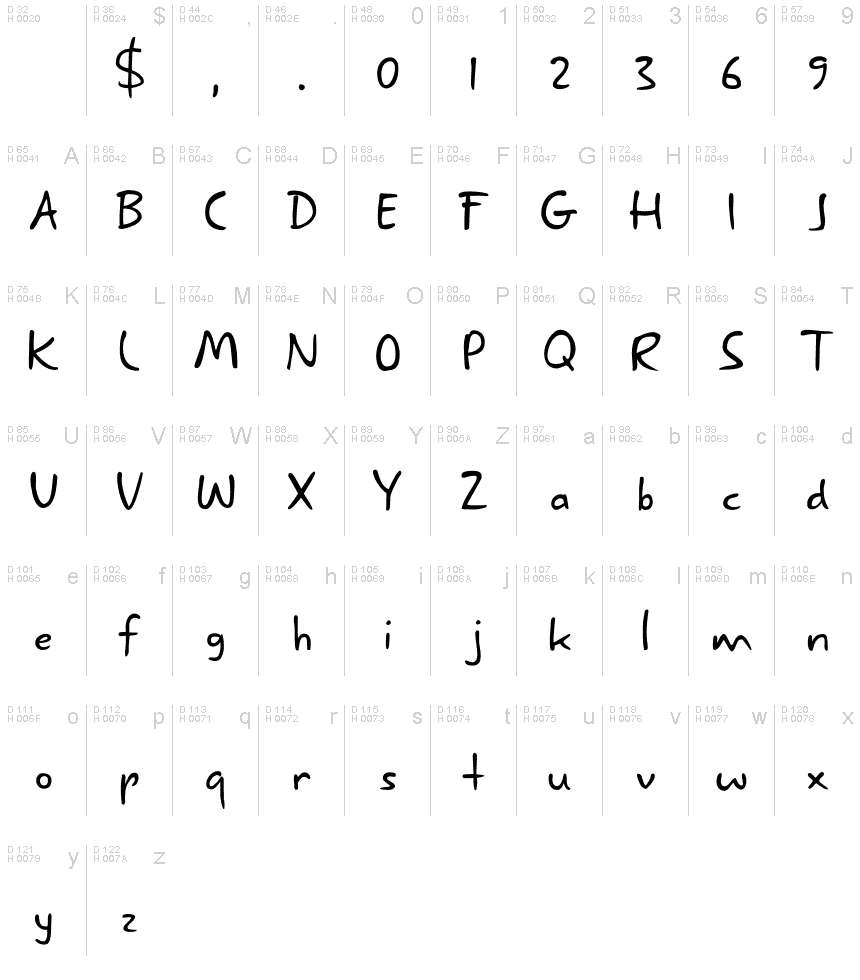
Yakitori Alley DEMO Regular
Yakitori Alley, designed by D K, is a casual handwritten font that effortlessly captures the essence of laid-back elegance. With its semi-light weight, this font exudes a relaxed charm that is perfect for projects where you want to create a friendly and approachable atmosphere.
Whether you're designing menus for trendy cafes, crafting invitations for intimate gatherings, or creating branding materials for hip boutiques, Yakitori Alley will add an authentic touch of warmth and personality to your creations.